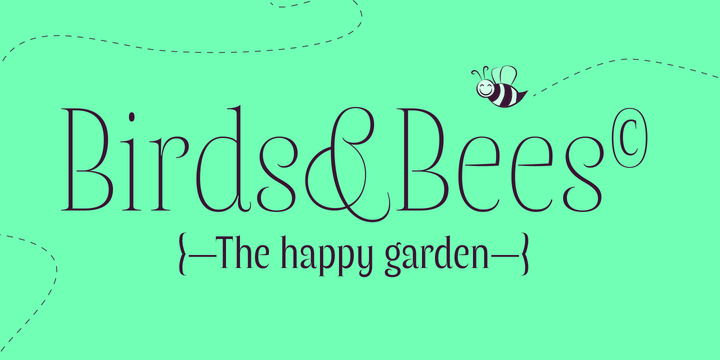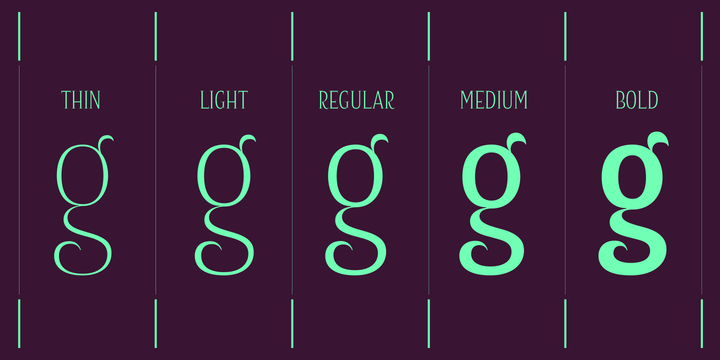
Bonny is a family of decorative serif fonts, designed for display typography. The letterforms are very condensed. They also contain a lot of stroke-contrast. Bonnys thin strokes often terminate in flourishes; these flourishes pair well with the typefaces serifs, which are both thin and short.
Bonnys uppercase letters are very top-heavy; the upper halves of B, E, F, H, K, M, R, S, and X are so large that they look almost like caricatures.
This feature is carried over the some of the lowercase letters, too. For example, Bonnys a, c, f, g, k, r, s, t, y, and z are all extravagant and lovely.
The v and w have calligraphic flourishes on their right-hand sides; similar expressions appear throughout rest of the the typeface, too.
Each font includes 13 f-ligatures. An alternate j may be automatically substituted into text, via the Contextual Alternates feature, preventing collisions with glyphs coming before it.
The fonts numerals are oldstyle figures, which match the rhythm of the lowercase letters.
From the Polish type designer Barbara Bigosinska, Bonny is an excellent choice for use on greeting cards and in packaging design.
Its fonts should be set in large point sizes, so that its details have enough space to really shine.
Bonnys uppercase letters are very top-heavy; the upper halves of B, E, F, H, K, M, R, S, and X are so large that they look almost like caricatures.
This feature is carried over the some of the lowercase letters, too. For example, Bonnys a, c, f, g, k, r, s, t, y, and z are all extravagant and lovely.
The v and w have calligraphic flourishes on their right-hand sides; similar expressions appear throughout rest of the the typeface, too.
Each font includes 13 f-ligatures. An alternate j may be automatically substituted into text, via the Contextual Alternates feature, preventing collisions with glyphs coming before it.
The fonts numerals are oldstyle figures, which match the rhythm of the lowercase letters.
From the Polish type designer Barbara Bigosinska, Bonny is an excellent choice for use on greeting cards and in packaging design.
Its fonts should be set in large point sizes, so that its details have enough space to really shine.